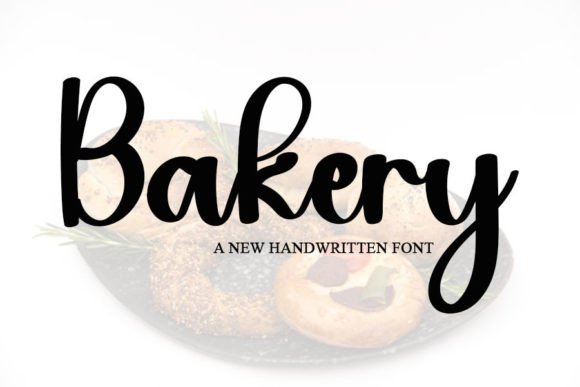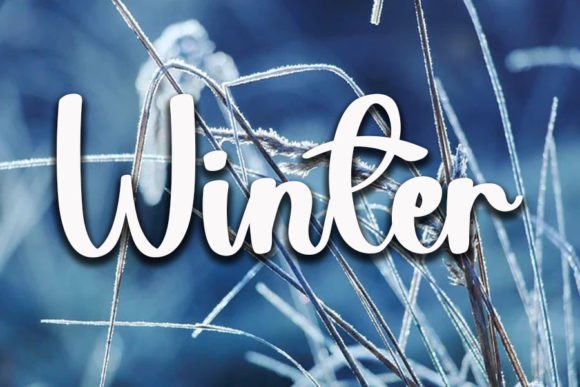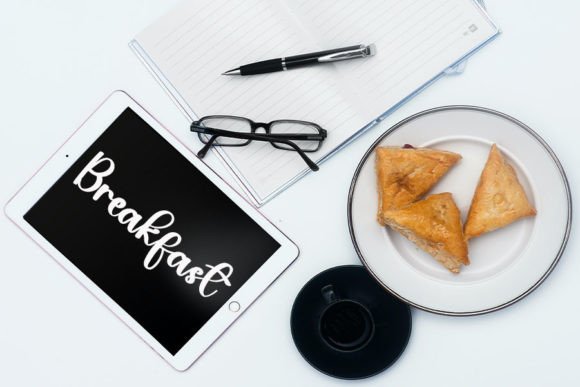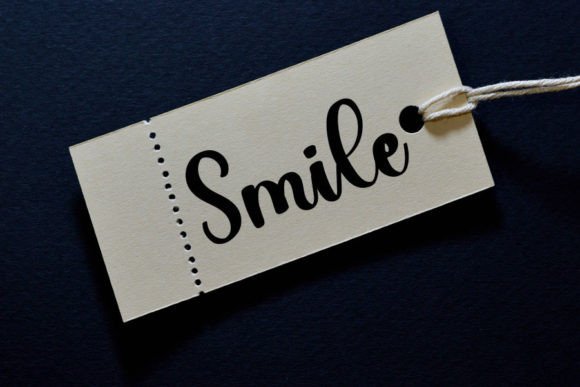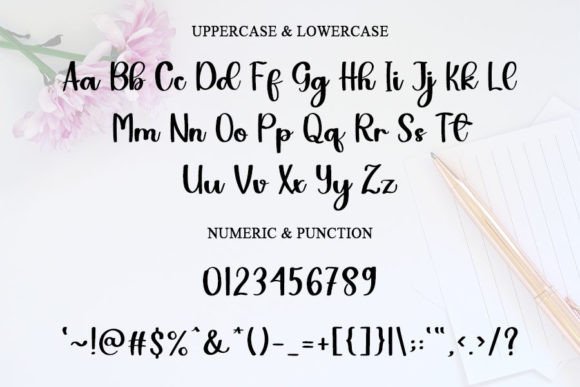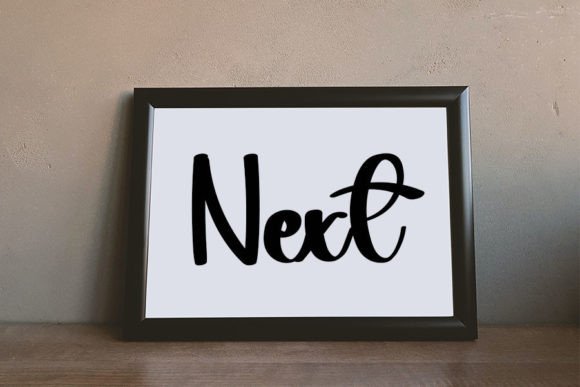
Bakery Font
About Bakery Font
Bakery is a magical handwritten font designed to bring elegance and warmth to your creative work. With its clean lines and a touch of quirky personality, this font blends sophistication with a fresh, playful spirit.
Whether you are building a brand, designing social media graphics, or working on DIY crafts, Bakery adds a personal and professional touch to every project.
A Handwritten Style That Feels Authentic
Bakery stands out with its smooth curves and balanced shapes. Each character feels natural, as if it were written by hand with care. The strokes are clean but have just enough irregularity to look organic and inviting.
This font has a friendly energy that makes text feel approachable. From simple logos to elegant product packaging, Bakery gives your designs a unique character that feels personal and real.
Versatile for Any Creative Project
Bakery’s versatility is one of its greatest strengths. You can use it across a wide range of applications:
• Logos and Branding: Bakery is ideal for boutique businesses, artisan products, and modern brands that want to look both stylish and authentic.
• Social Media Posts: Create eye-catching captions and promotional graphics with ease.
• Product Packaging: Make labels, tags, and boxes feel more personal.
• Wedding Invitations: Add warmth and elegance to your stationery.
• DIY Crafts: Perfect for signs, stickers, and handmade gifts.
• Blog Graphics: Enhance your content with a touch of creativity.
No matter where you use it, Bakery adapts beautifully to different styles and themes.
Simple to Use and Customize
Its smooth letterforms mean you won’t have to spend hours adjusting spacing or alignment. Just type, and Bakery looks great right away.
Design Tips for Stunning Results
Here are some tips to get the best out of Bakery:
• Pair with a clean sans-serif: A minimalist secondary font keeps the design balanced.
• Use subtle colors: Soft shades and pastels enhance Bakery’s elegant style.
• Keep backgrounds simple: Neutral backgrounds let the letters shine.
• Add texture: Light paper textures create a handcrafted feel.
These simple tricks help you create beautiful, cohesive designs effortlessly.
The Perfect Choice for Modern Creatives
Bakery is an excellent choice for designers, small business owners, and creatives who want their work to feel warm and polished. Its blend of elegance and playfulness makes it suitable for countless projects.
From logos to invitations, Bakery helps you create designs that are memorable and full of character.